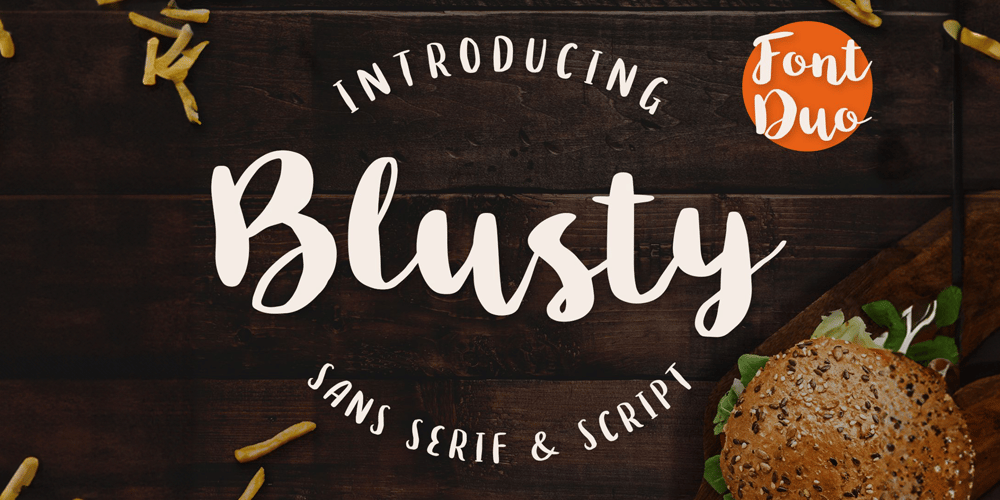
Blusty Font Family was designed by Trio Nazzar Saputra, Wahyu Hadi Yuana and published by Craft Supply Co. Blusty contains 2 styles and family package options. Blusty Font Duo is an handwritten script font based on the expression of real handwriting, lets you transform type into an exciting and beautiful piece of work. The irregular, hand-lettered look adds a real human touch to things and comes along with a lot of loving details.